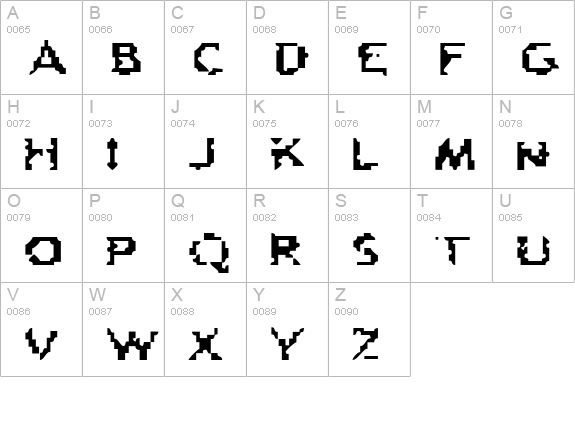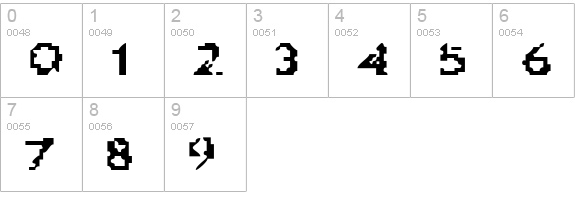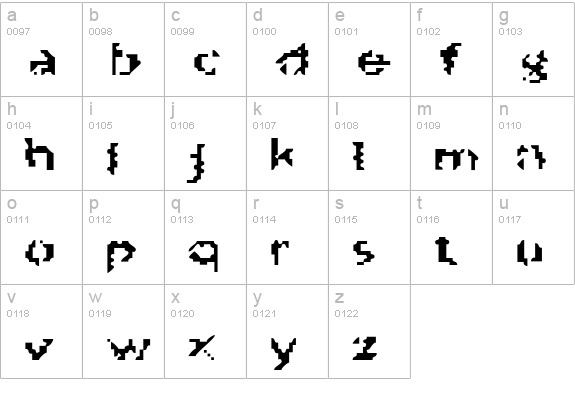
Damn the Man Font Details
Introducing Damn the Man, a bold and rebellious font that breaks free from the conformity of traditional typography. With its edgy and dynamic design, this font captures the essence of defiance and individuality, making it the perfect choice for those who dare to stand out. Damn the Man font is a striking display typeface that exudes confidence and attitude. Its strong and angular letterforms command attention, making it ideal for headlines, posters, and branding projects that require a touch of rebellion. What sets Damn the Man font apart is not just its bold aesthetic, but also its versatility. This font can easily adapt to a variety of design styles, from grunge and urban to modern and futuristic. Its unique character set includes uppercase letters, numbers, and punctuation, ensuring that your message will be delivered with impact and clarity. And the best part? Damn the Man font is freely available to download at FontsMarket.com. This means that you can unleash your creativity and make a statement without any limitations. Whether you're a graphic designer, a typographer, or simply someone who appreciates the power of typography, this font is a must-have in your collection. So, if you're ready to break free from the ordinary and embrace your inner rebel, download Damn the Man font today and let your designs speak volumes. Get it now at FontsMarket.com and make your mark with this bold and empowering typeface.